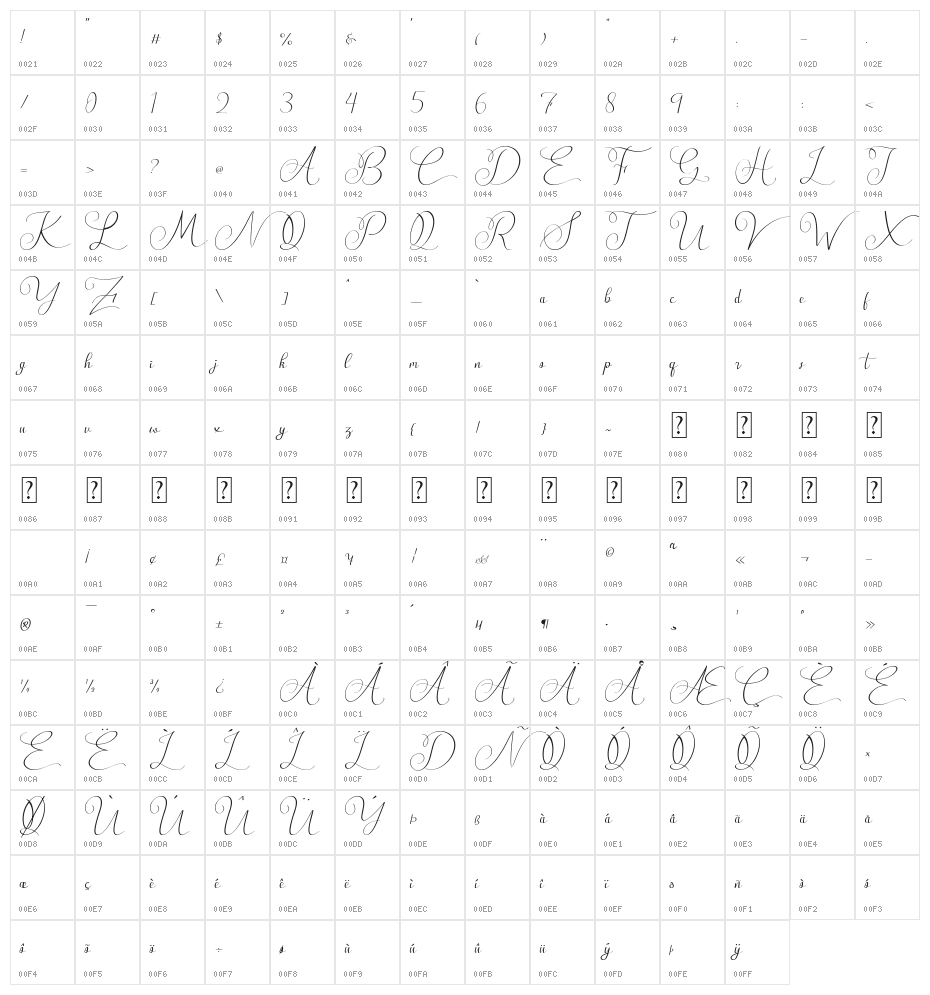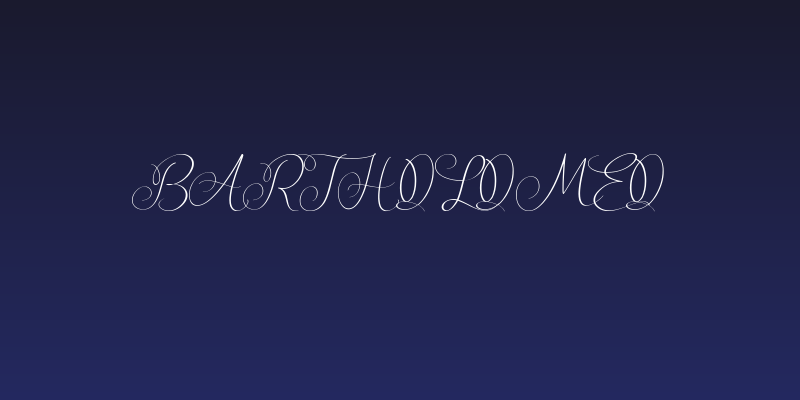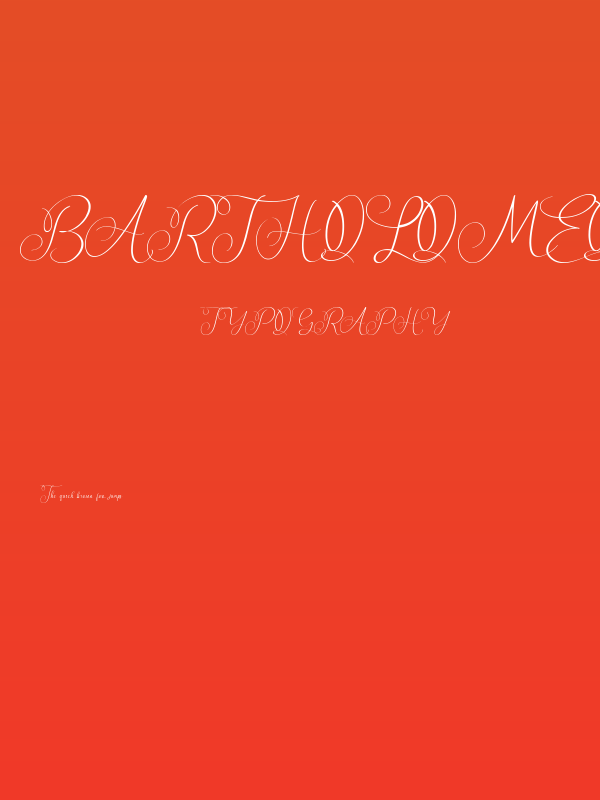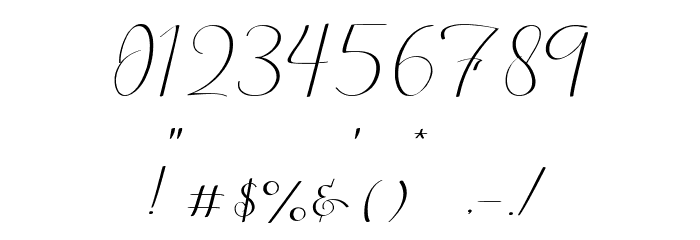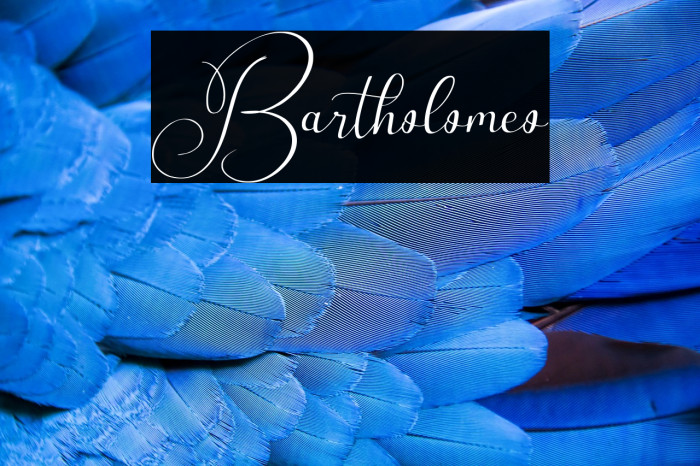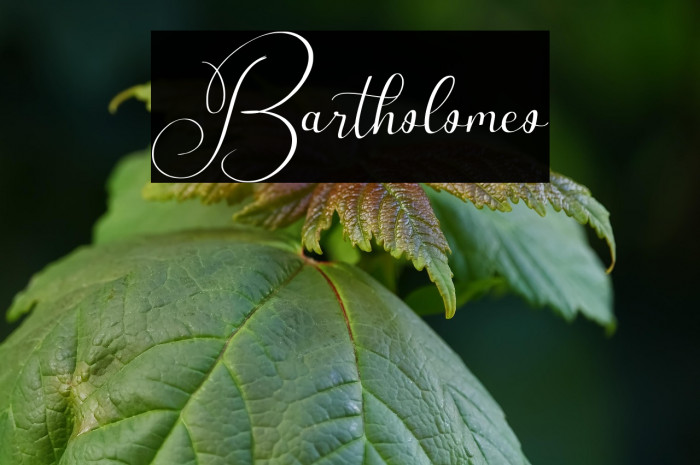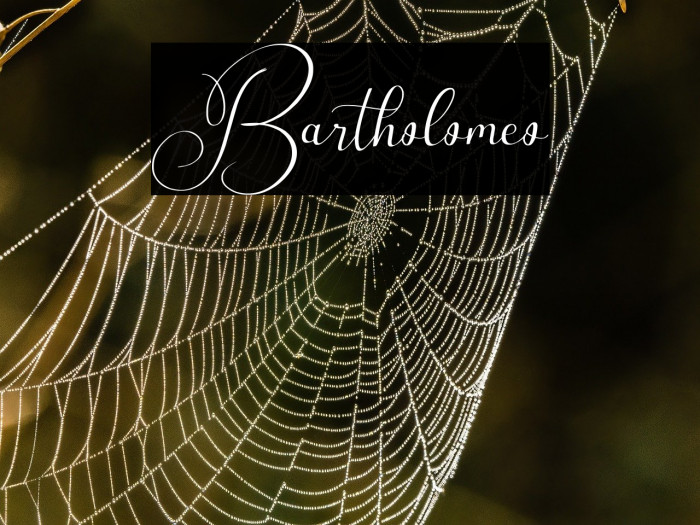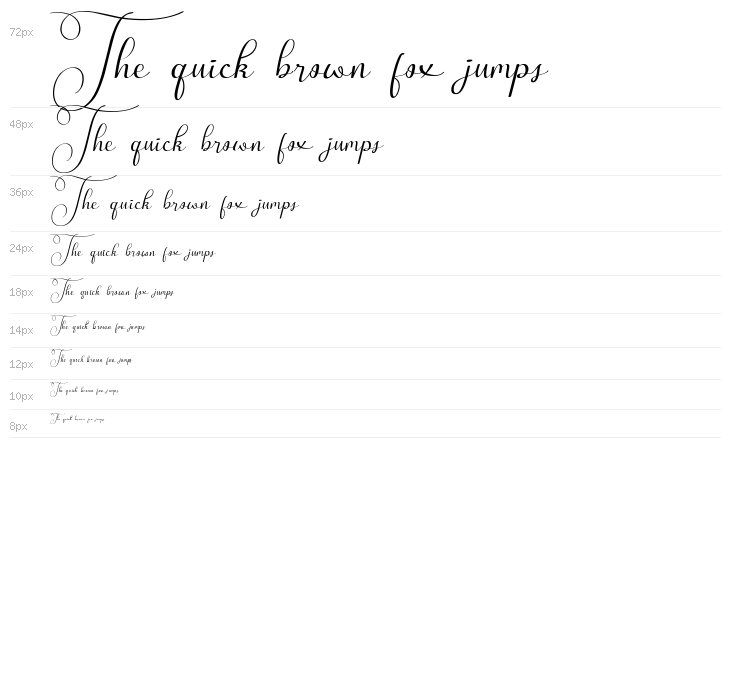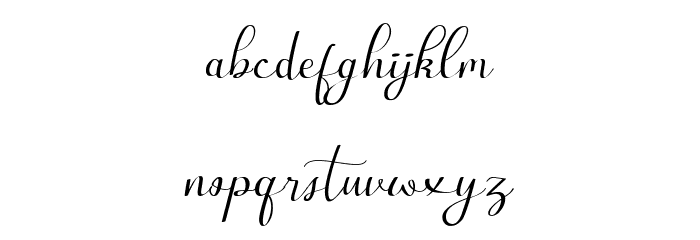
Bartholomeo Font
Bartholomeo Description
This elegant script font features a sophisticated and flowing design, characterized by its intricate loops and swirls. The uppercase letters are particularly ornate, with elaborate flourishes that give the font a sense of grandeur and formality. The lowercase letters maintain a consistent style, with smooth, connected strokes that enhance readability while preserving the decorative nature. The numerals are stylish yet clear, making them suitable for a variety of uses. Special characters are thoughtfully designed to match the overall aesthetic, ensuring a cohesive look across all text elements. This font is ideal for projects that require a touch of elegance and sophistication.
| Proposed Projects | Wedding invitations, luxury branding, elegant stationery, formal event programs. |